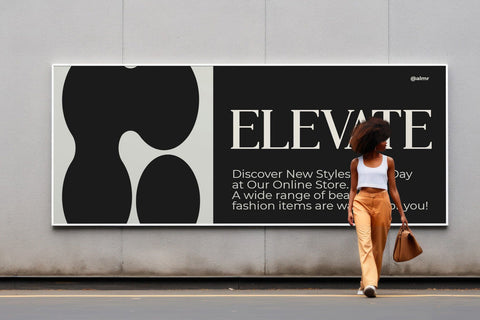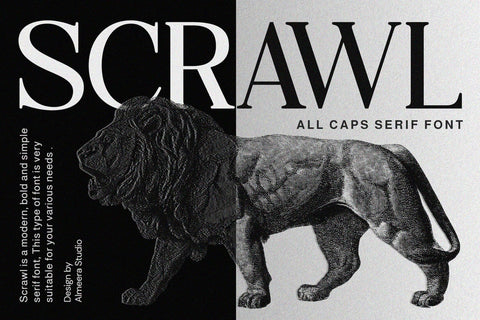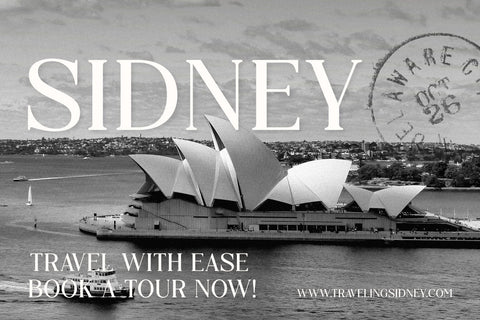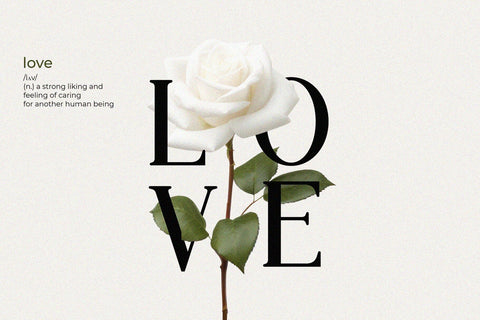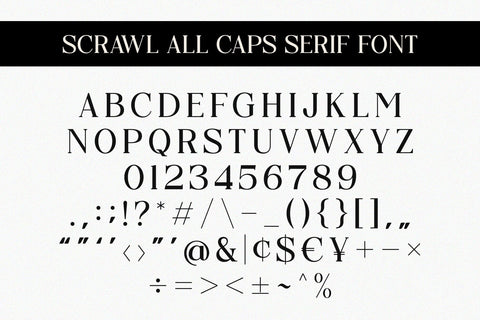
Scrawl - Serif Font
Introducing Scrawl - All caps serif font. Scrawl is a All caps, stylish & elegant serif font, This type of font is very suitable for your various needs such as branding projects, logos, social media posts, advertisements, labels, product packaging, photography, wedding designs, watermarks, invitation product designs, stationery, and any project.
FEATURES:
- Punctuation
- Symbols